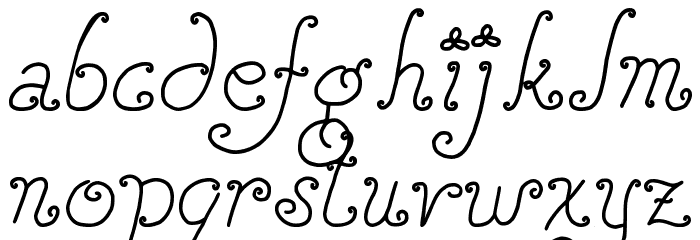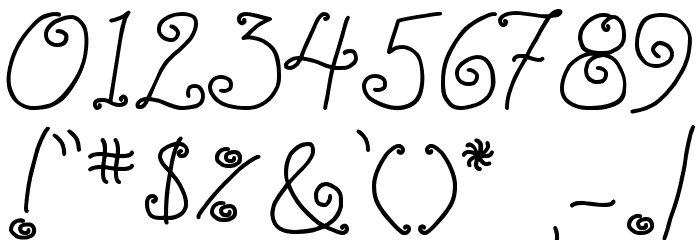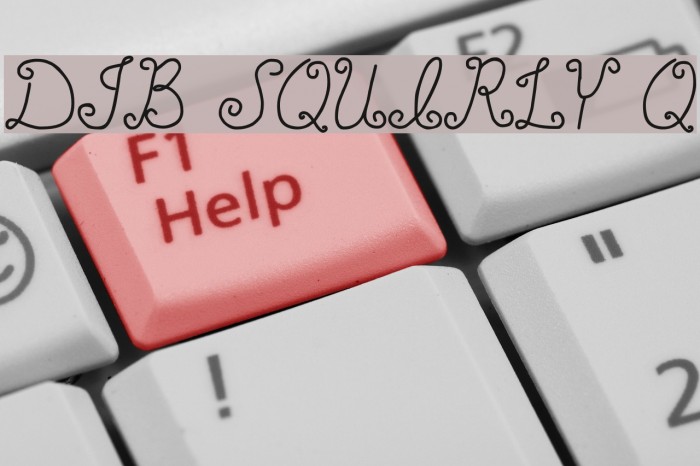
DJB SQUIRLY Q Font
This whimsical and playful font features a unique design with curly, swirling elements that give it a lively and fun appearance. The characters are adorned with loops and flourishes, creating an engaging and decorative style. The uppercase letters maintain a consistent height with elaborate curls, while the lowercase letters are slightly more subdued but still retain the overall whimsical theme. Numbers and special characters are equally ornate, ensuring a cohesive look across all glyphs. This font is perfect for projects that require a touch of creativity and flair.
A whimsical, curly font with playful loops and flourishes.
- Proposed Projects: Ideal for children's book covers, playful invitations, greeting cards, and creative branding projects.